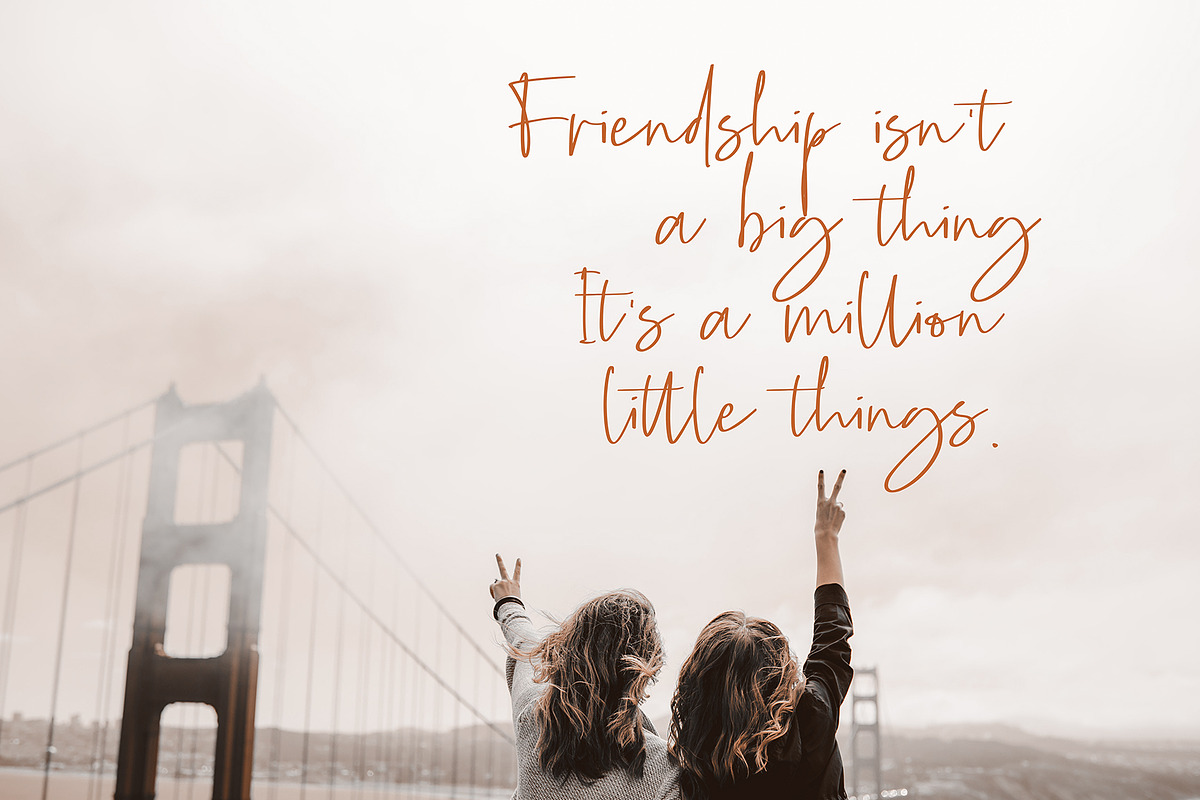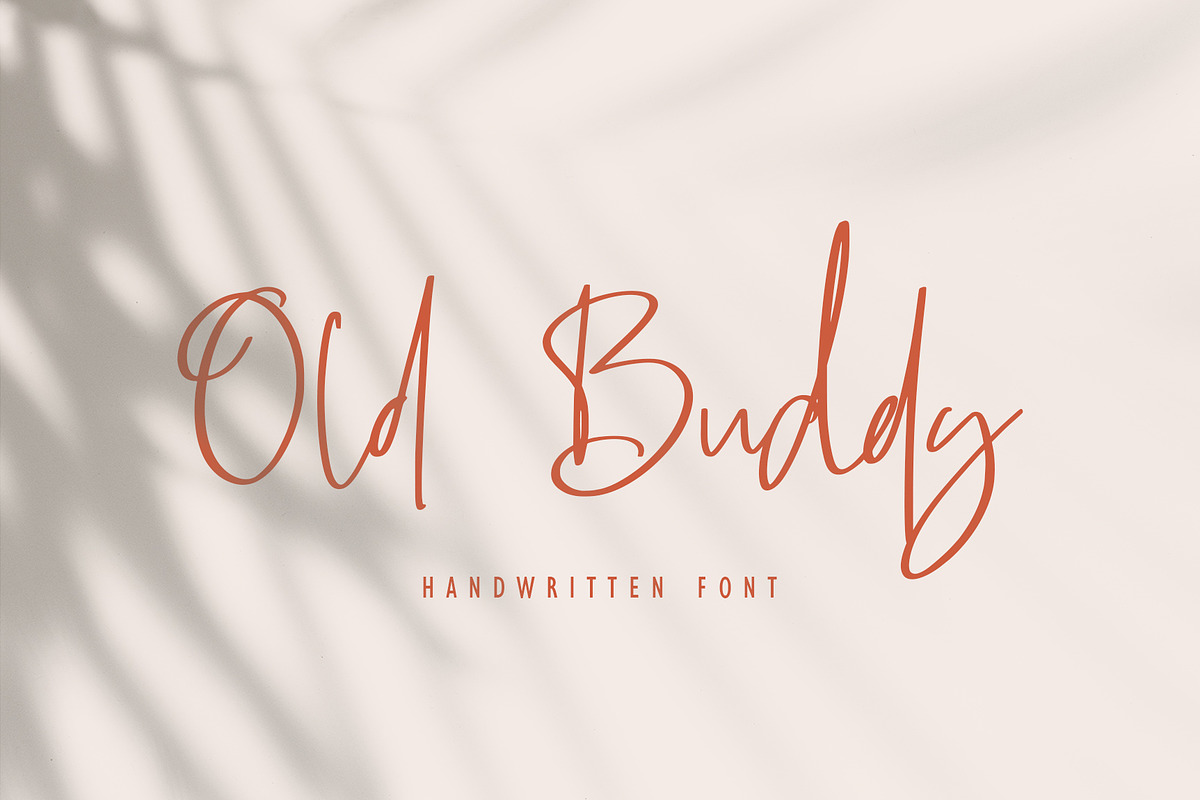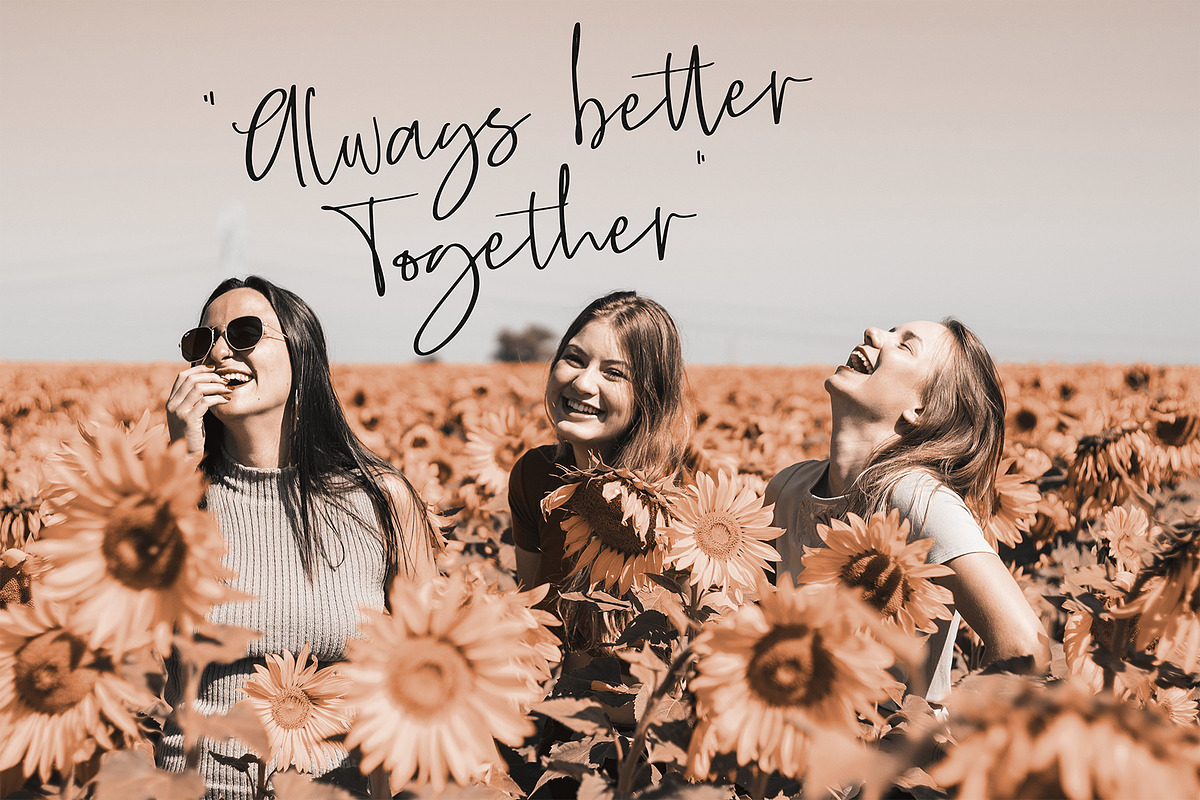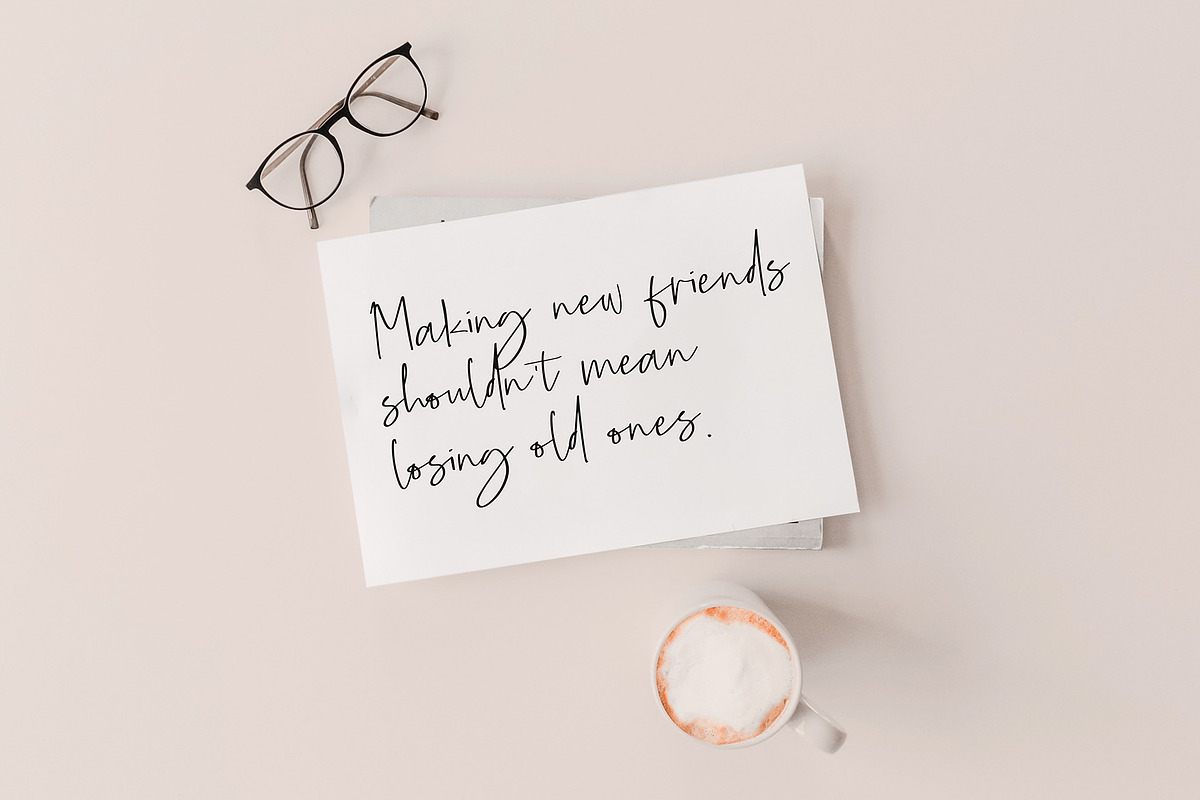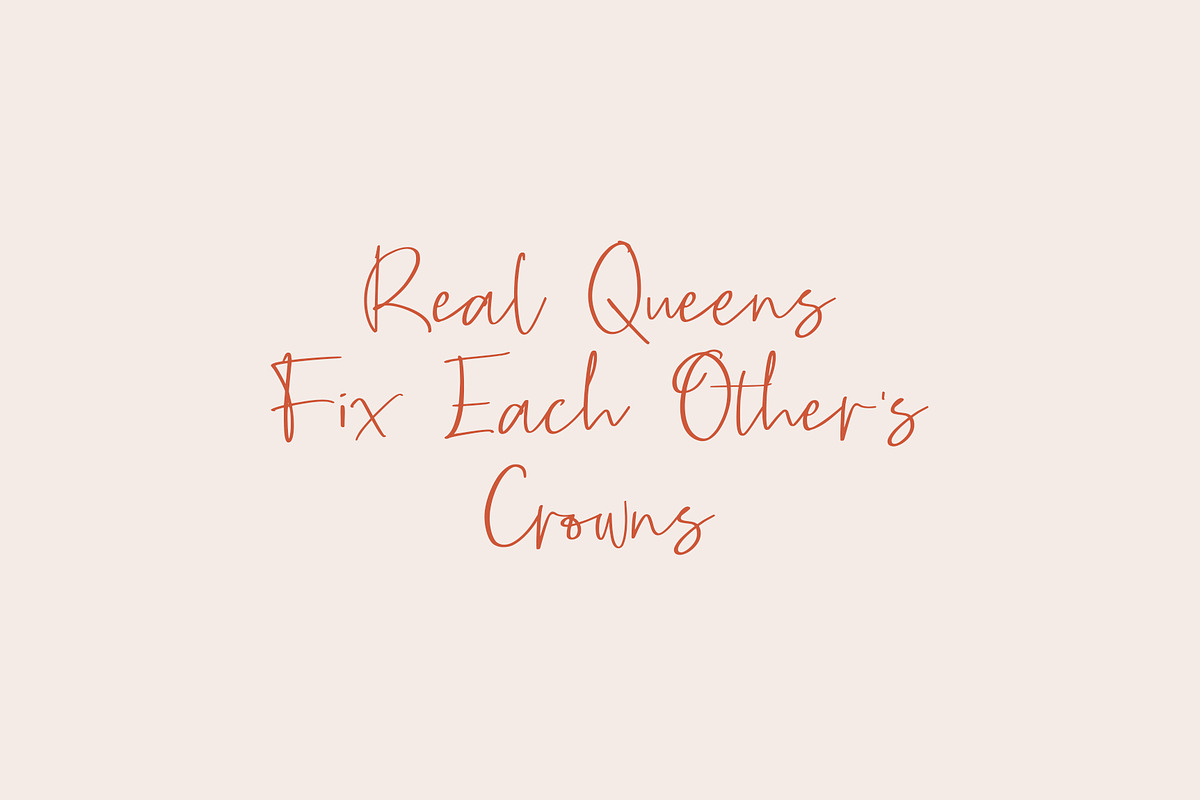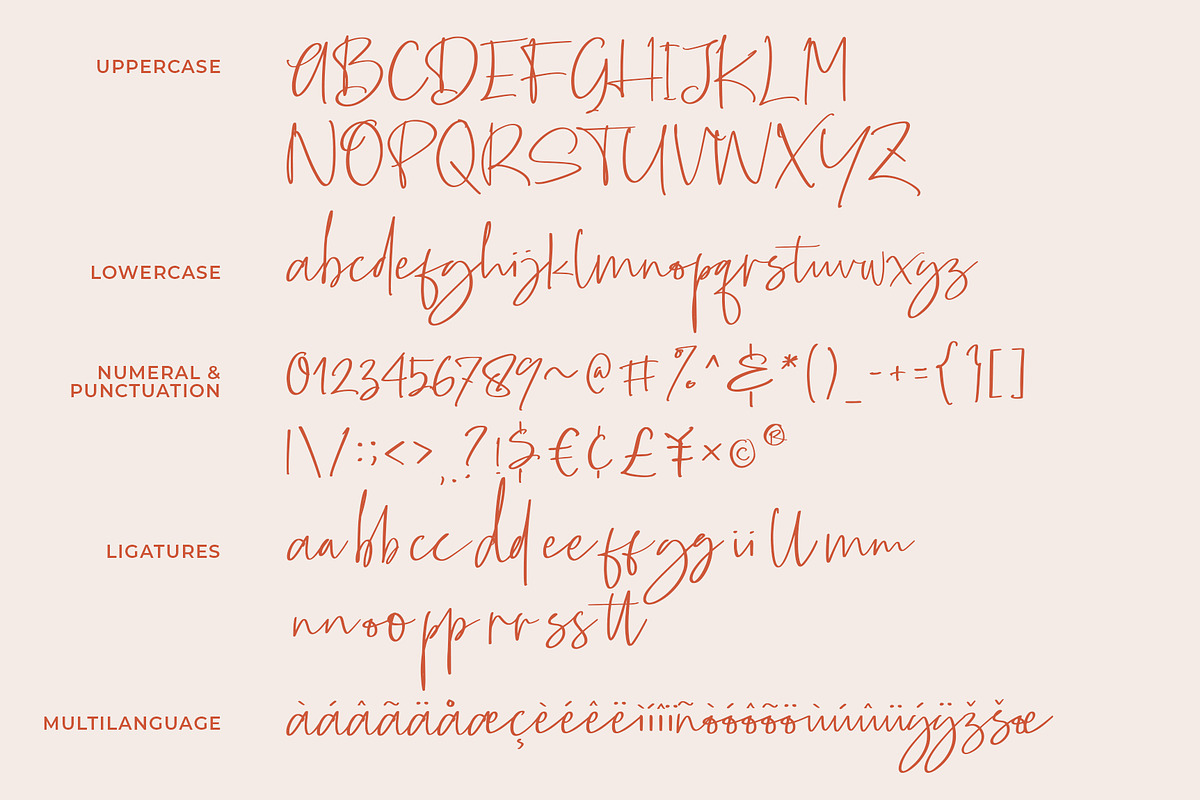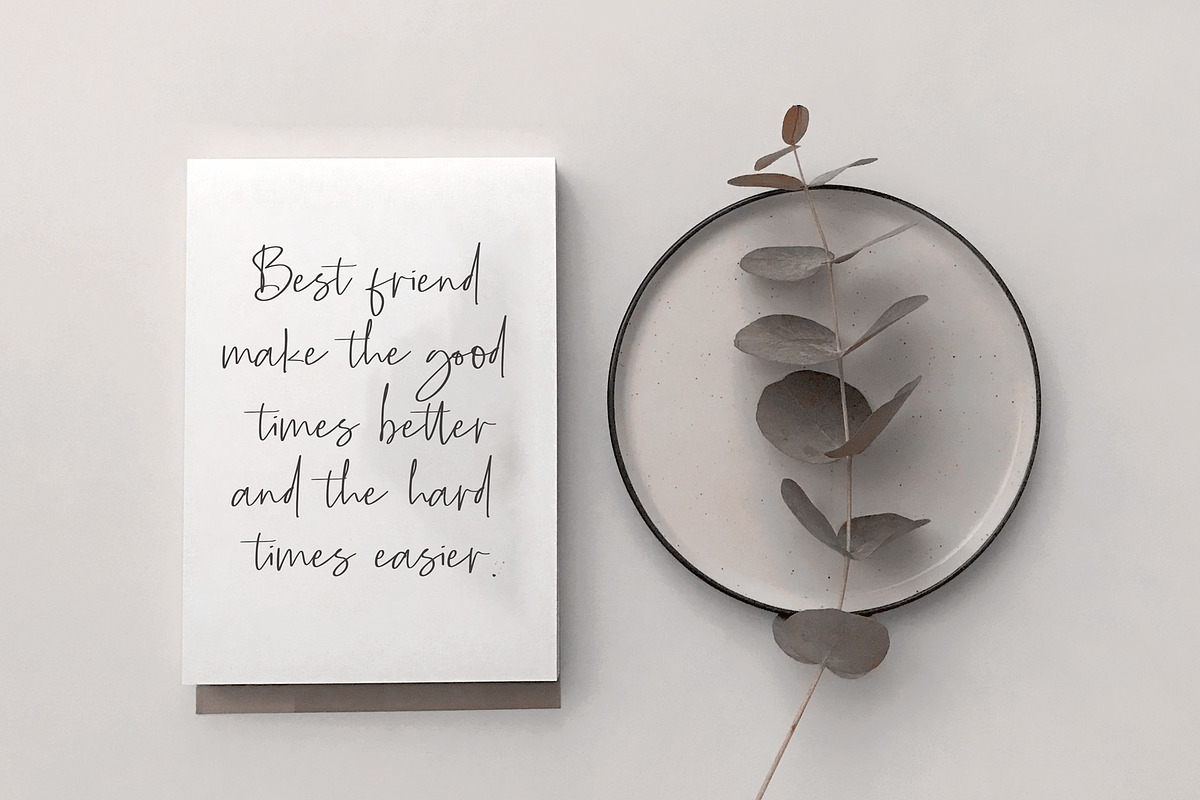
Old Buddy - Handwritten Font
Old Buddy is an elegant handwritten script font. Get inspired by its unique shape and character! Great and It will turn any design project stand-out!